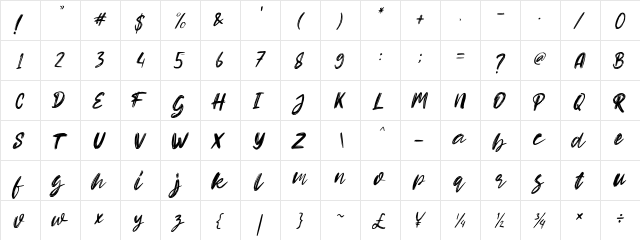
Hello Dear Demo Italic
Design Context for Hello Dear Demo Typeface
Hello Dear Demo is a composed and adaptable typeface that performs quietly and consistently across a wide range of design contexts. The slanted form adds forward momentum and visual energy.
Pro Tip: Use Hello Dear Demo for emphasis, pull quotes, and subheadings where its slanted energy can add rhythm to the layout.